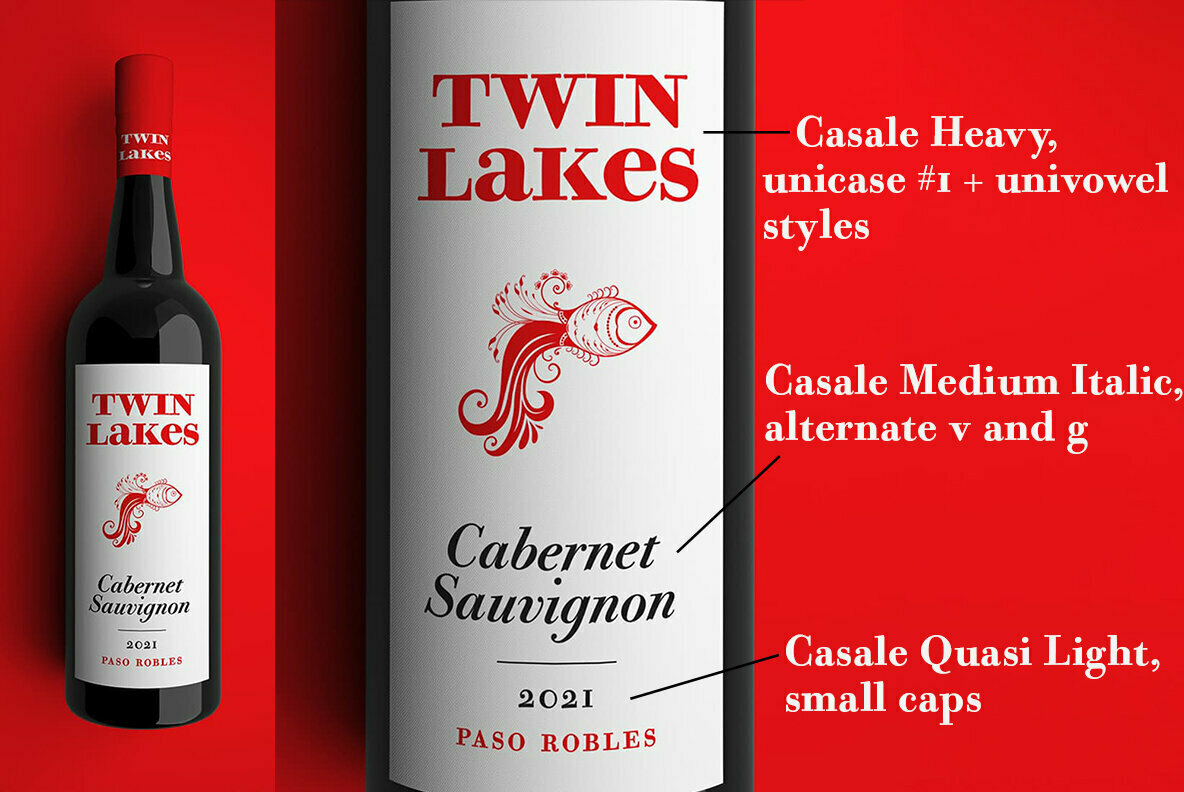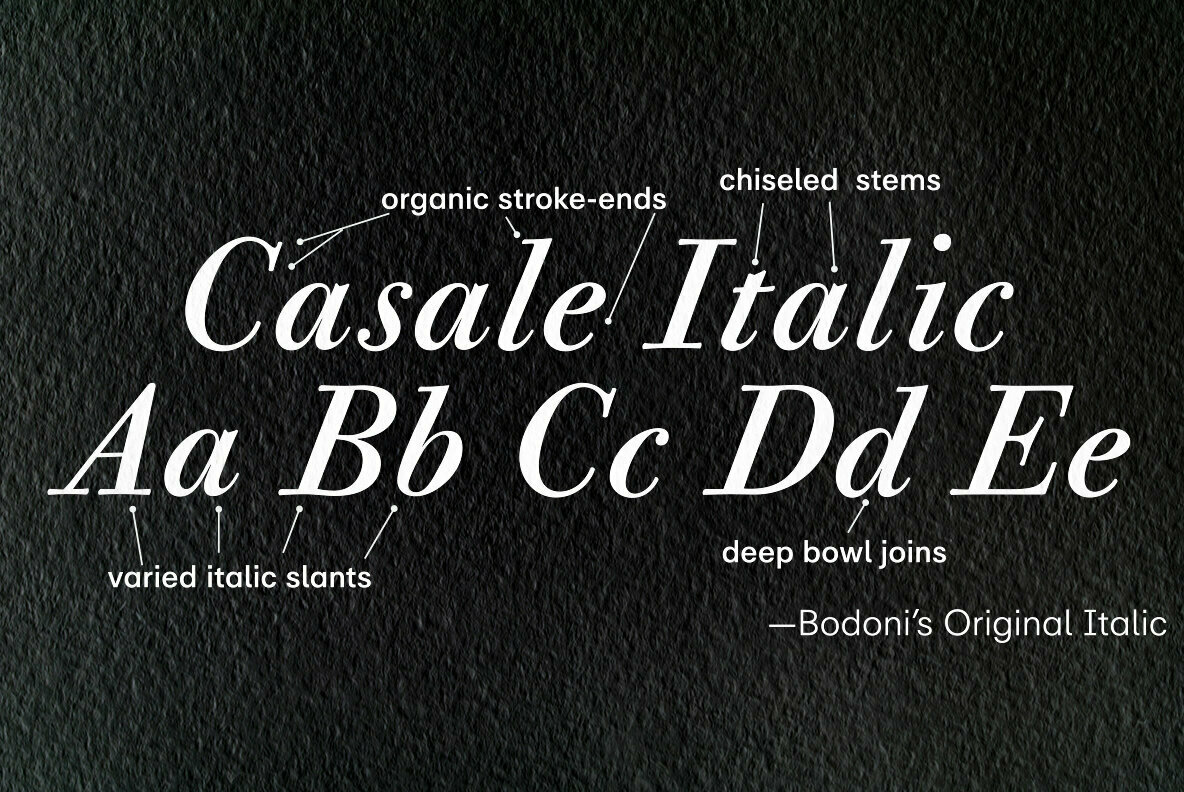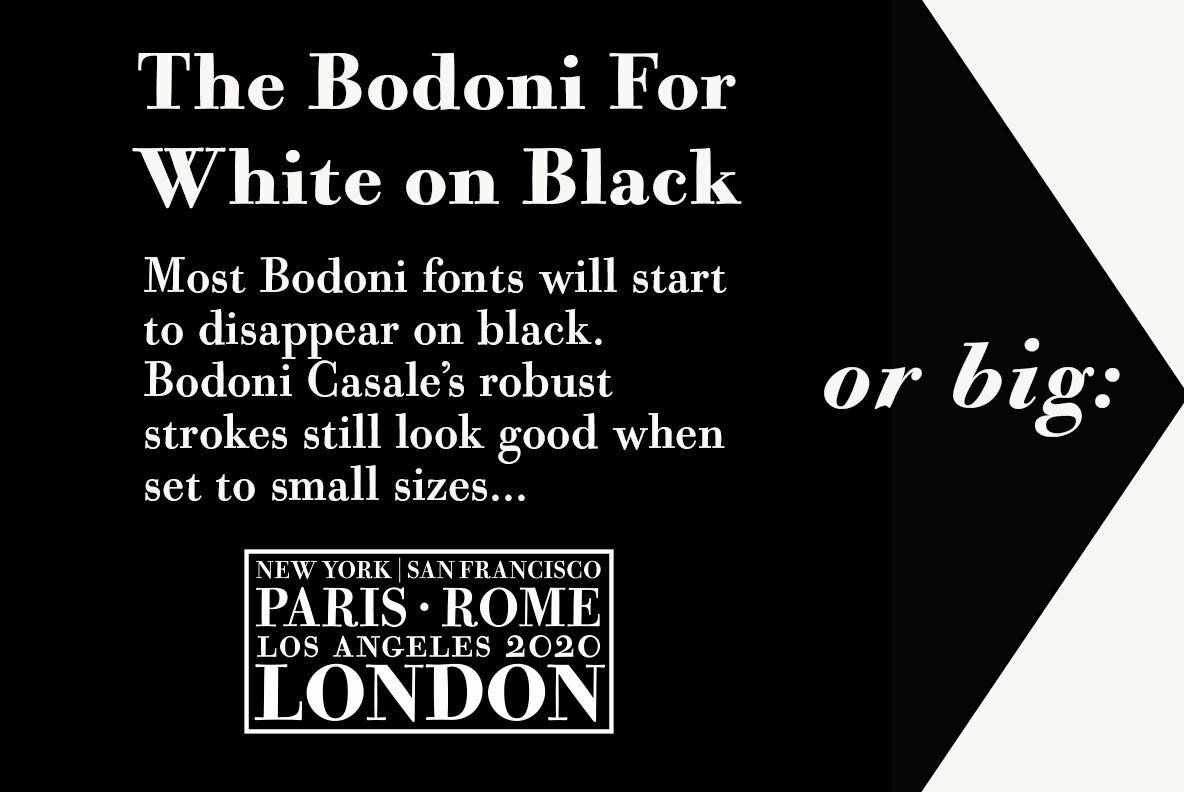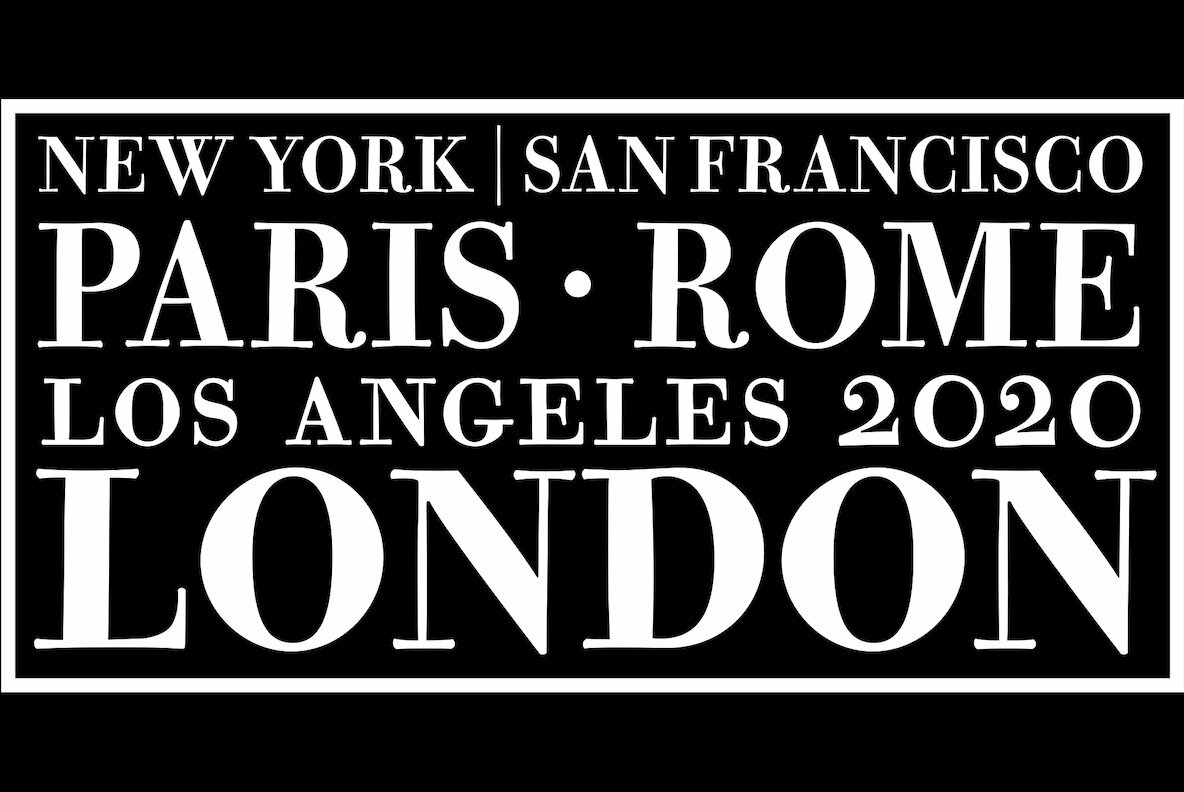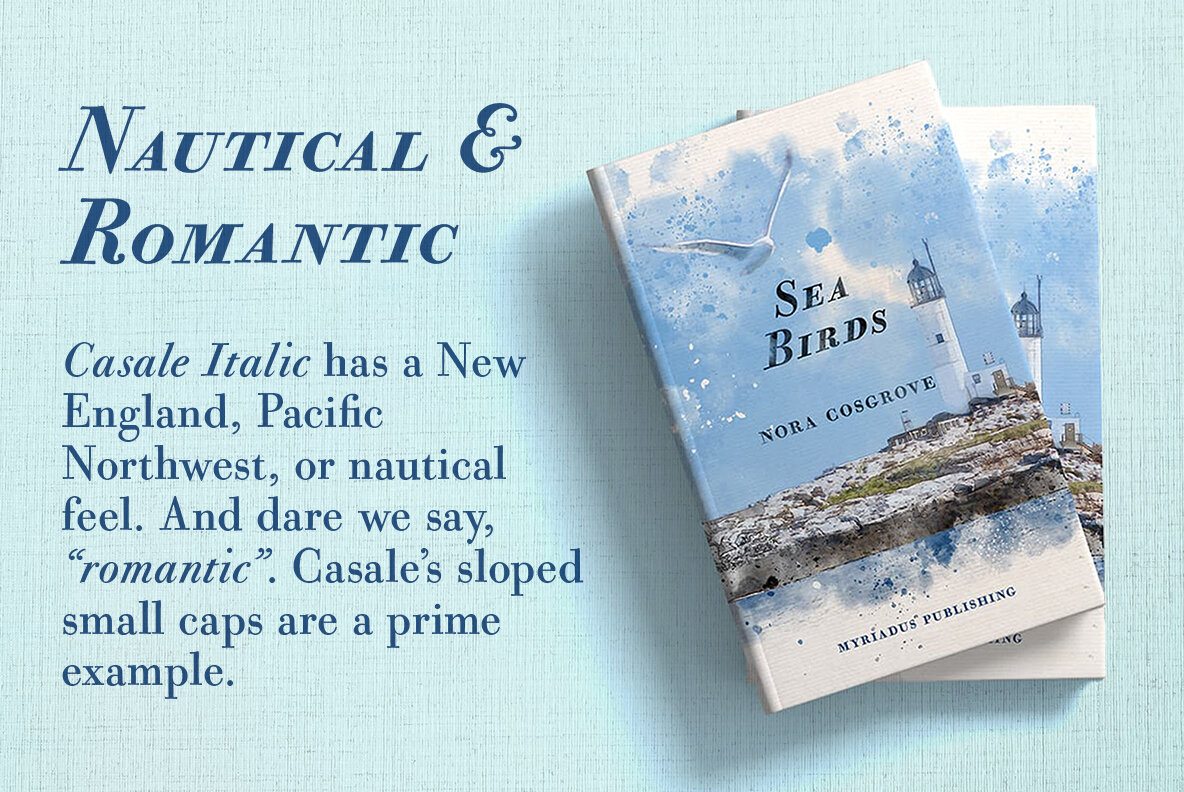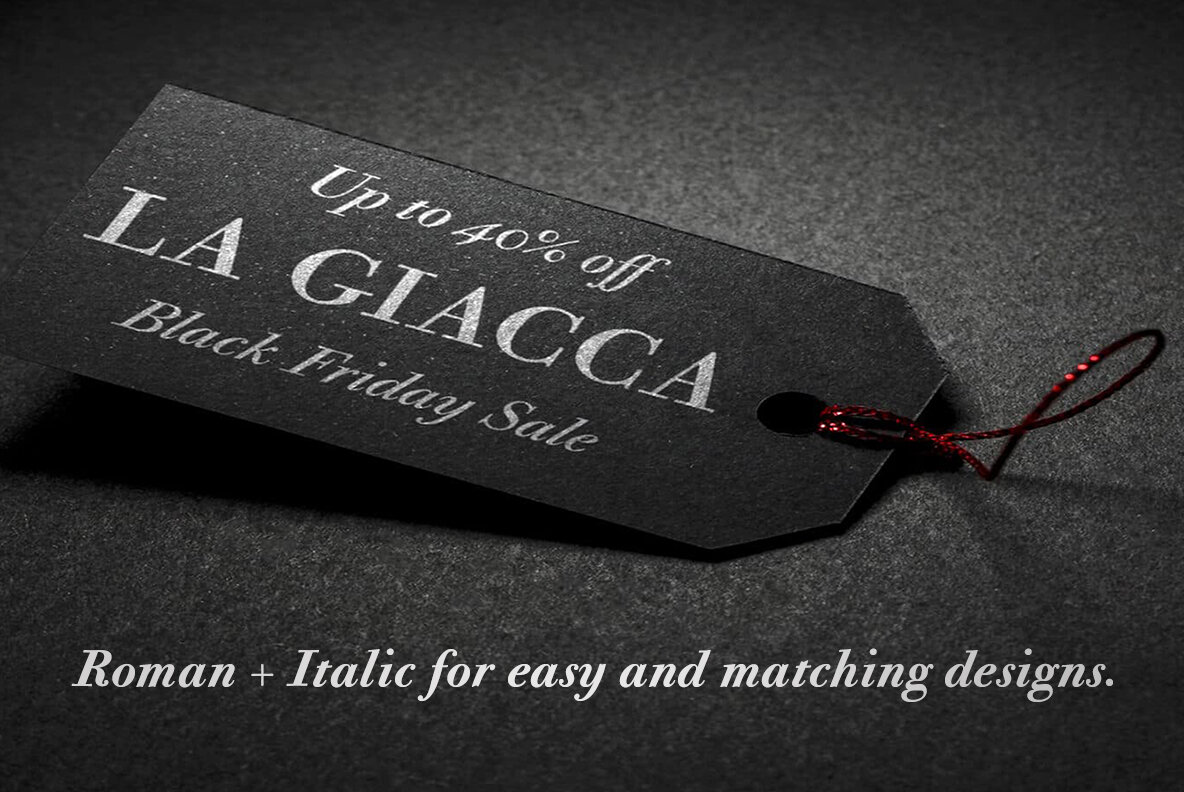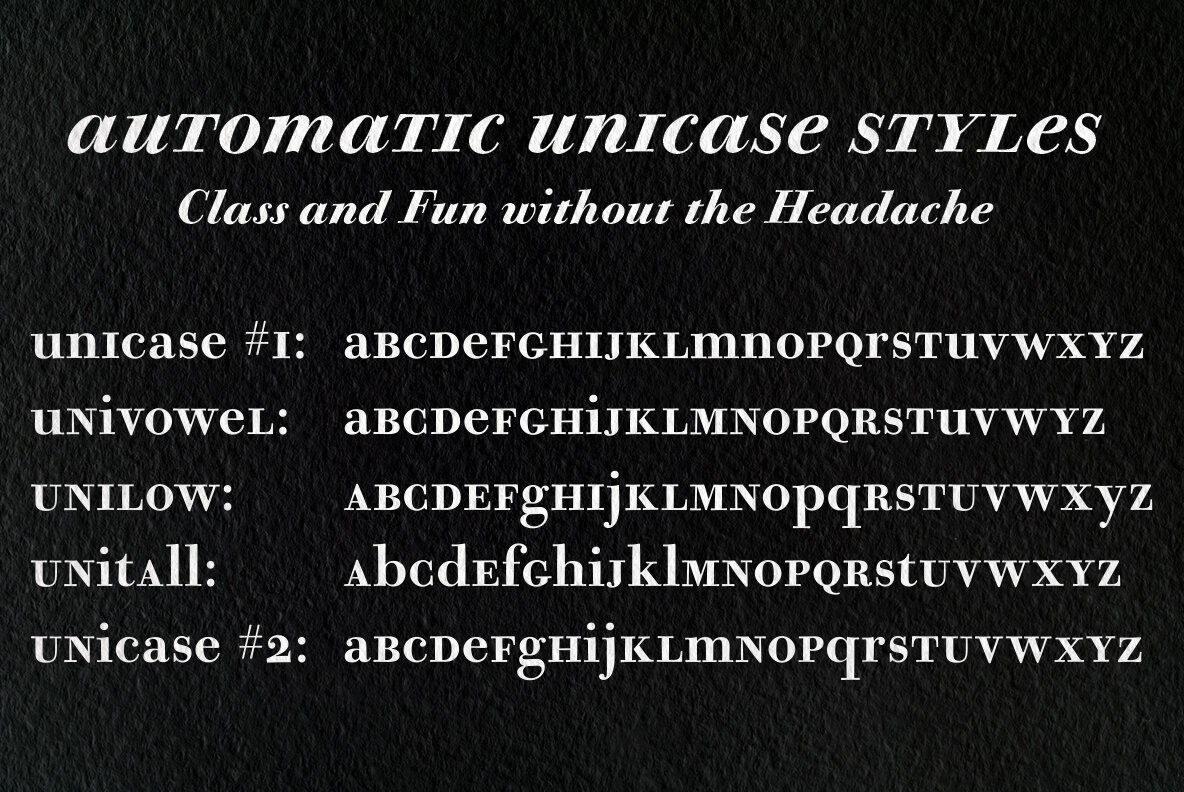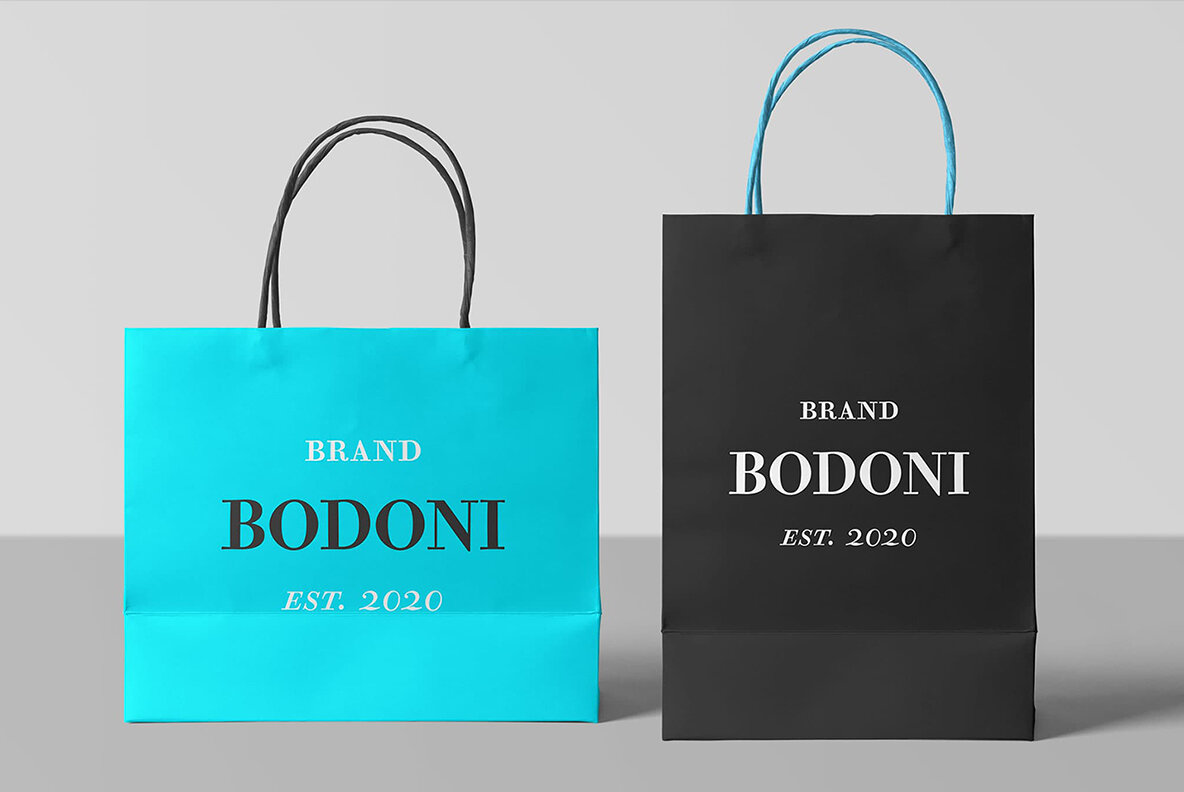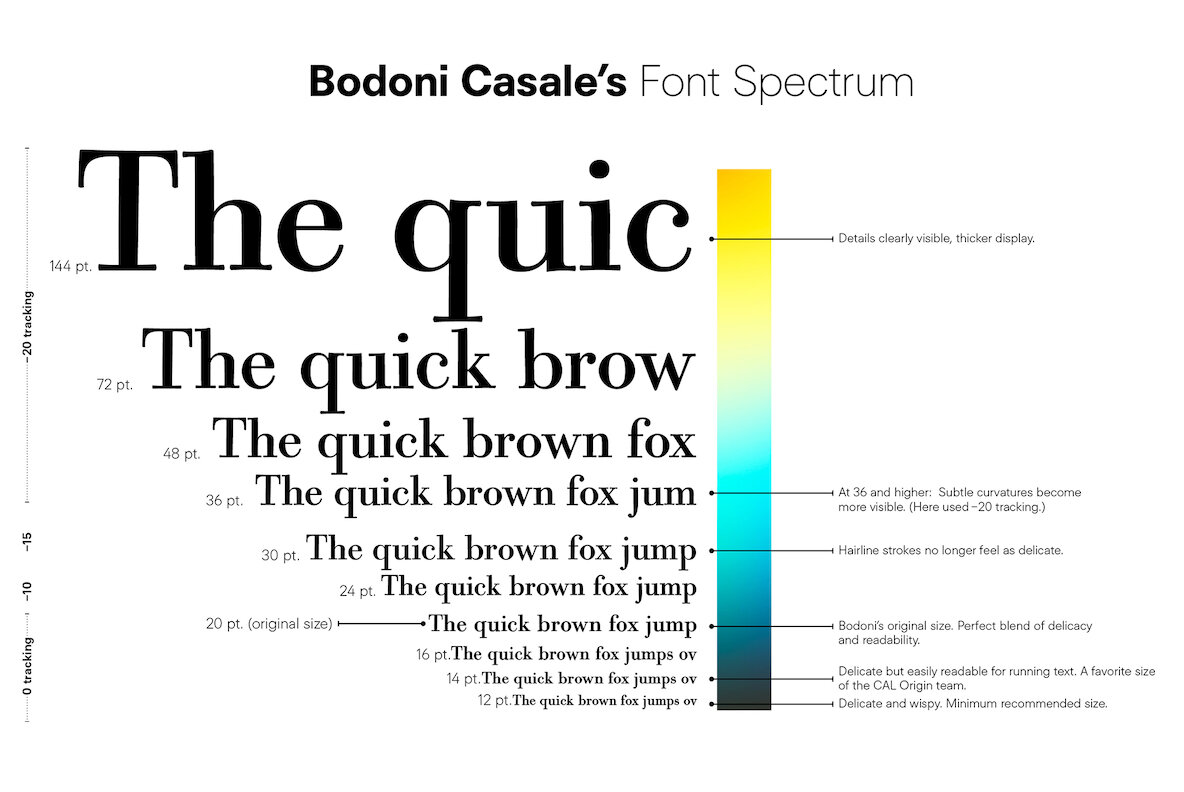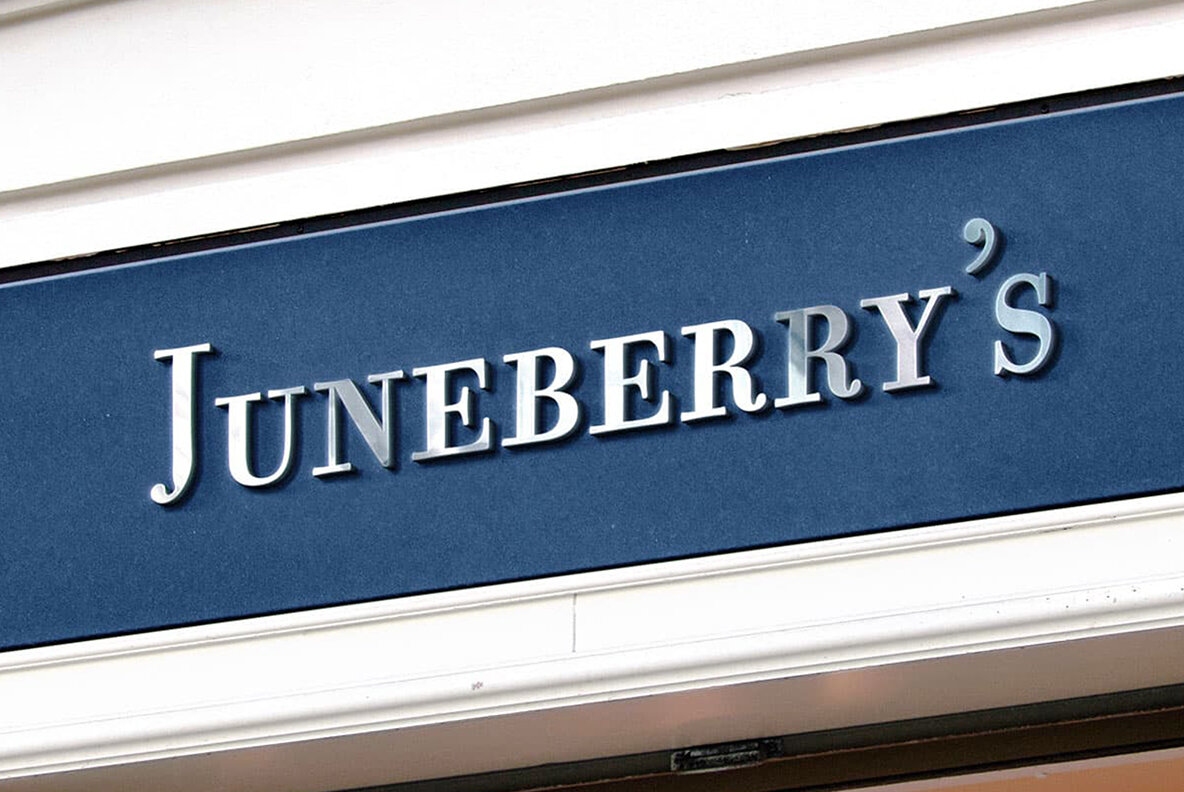
Bodoni Casale Font
This typeface has been beloved throughout history. Bodoni used it to print his first masterwork, but it has never before been publicly available. Now available for the first time, CAL Bodoni Casale has been painstakingly crafted from hi-res scans of 4 original Bodoni printings.
Unlike many Bodonis drawn from computerized straight lines, this Bodoni follows the original contours of the master himself. With small caps, old style numbers, special options for $, %, £, €, Bodoni Casale allows you to make elegant pricing, sales signs, or logos.
Besides it's authentic origins, Casale's 21st century debut includes Features & Alternates never seen before, including Frankenfont (giving the font 6 fun alternative uses with 1 click!). Other alternates, such as the $ and €, give the user options when styling their work. Various word and letter spacing options are also automatically included so the user can choose to preserve Bodoni's original spacings or go with a more modern look.
The Bodoni for White on Black
Most Bodoni fonts will start to disappear on black. Bodoni Casale’s robust strokes don’t disappear, even when set to smaller sizes. The robust strokes of this Bodoni font also lend visibility and legibility at large sizes with dark background, such as on signage.
Bodoni's original font, Roman + Italic and small caps
Style Sets for quick and beautiful formatting
5 Unicase Options
An army of percentage signs, dollar signs, and money symbols.
Punctuation Options for any reading situation
A Realistic and Inky look
Designed by Bodoni Himself